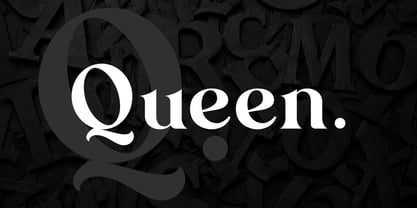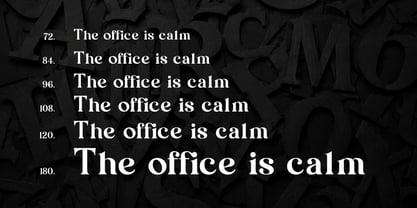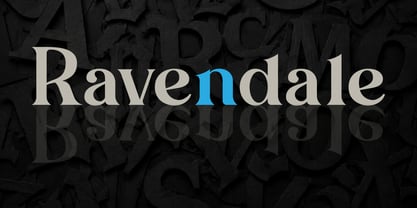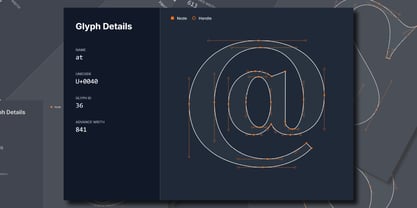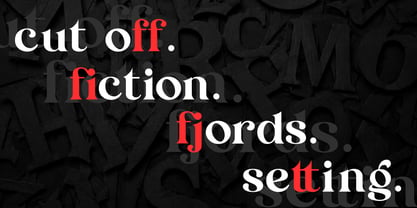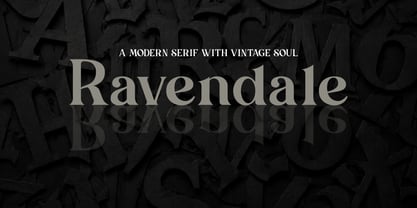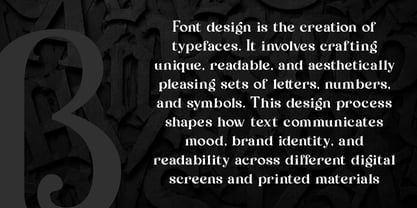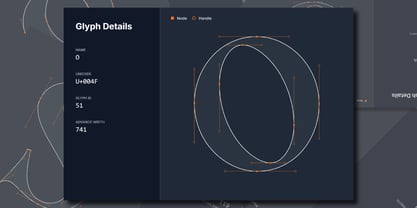
Ravendale
Die Schriftfamilie Ravendale wurde von Ihsan Nugroho entworfen und von Pictranoosa veröffentlicht. Ravendale enthält 1 Stile. Mehr über diese Familie
Ravendale is a sophisticated modern serif typeface that effortlessly blends timeless elegance with contemporary craftsmanship. Designed with subtle organic curves, expressive details, and rich OpenType features, Ravendale brings an aura of quiet luxury and high-end charm to any editorial or branding project. Whether crafted for bold headlines or set in immersive body text, Ravendale maintains flawless legibility and a sleek, graceful rhythm across print and digital media.